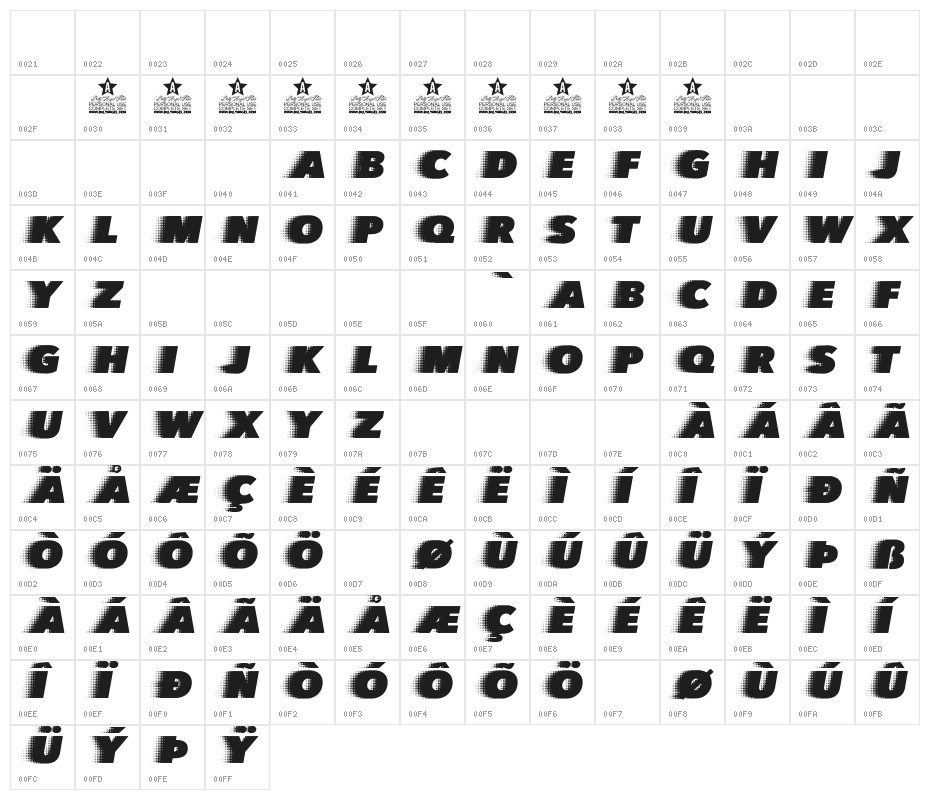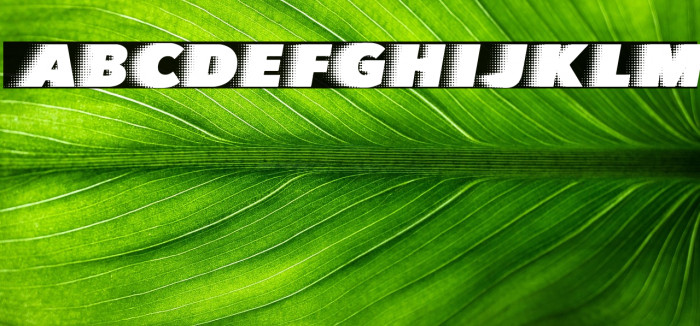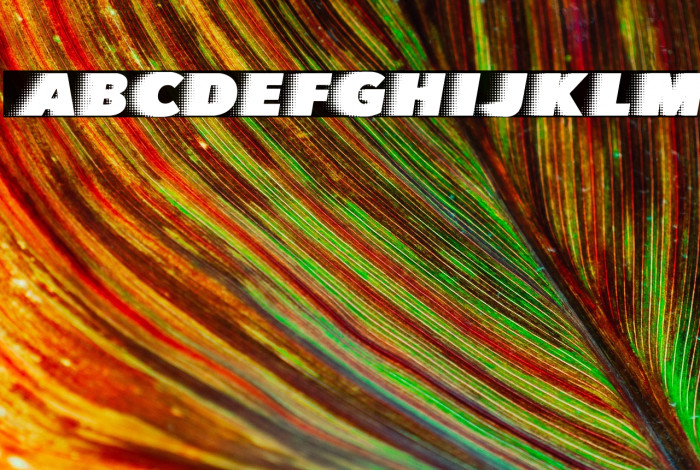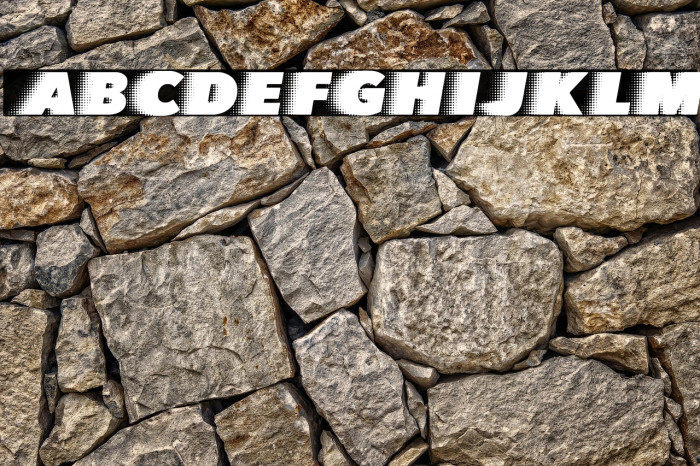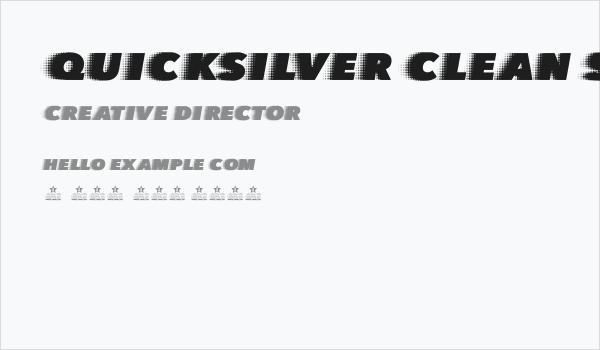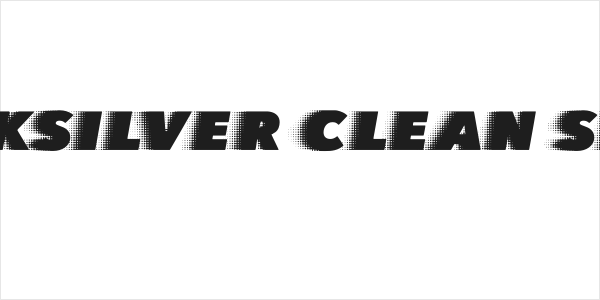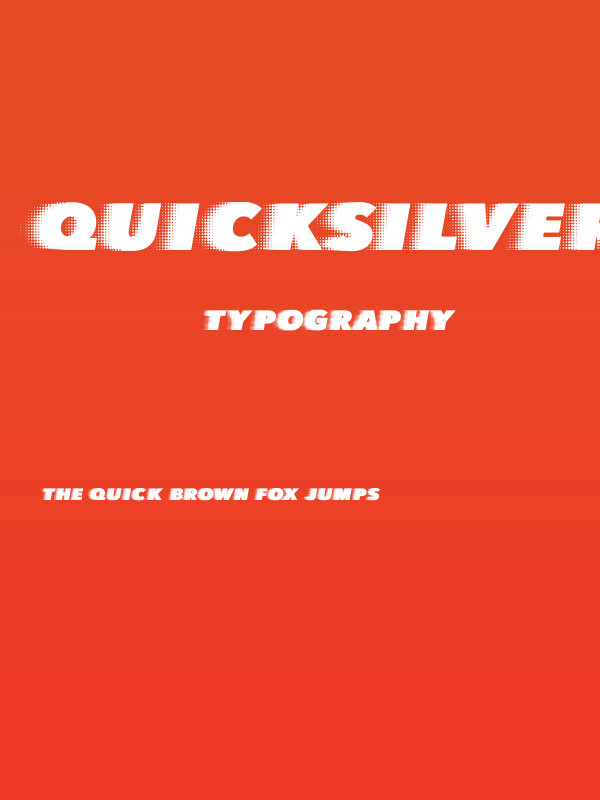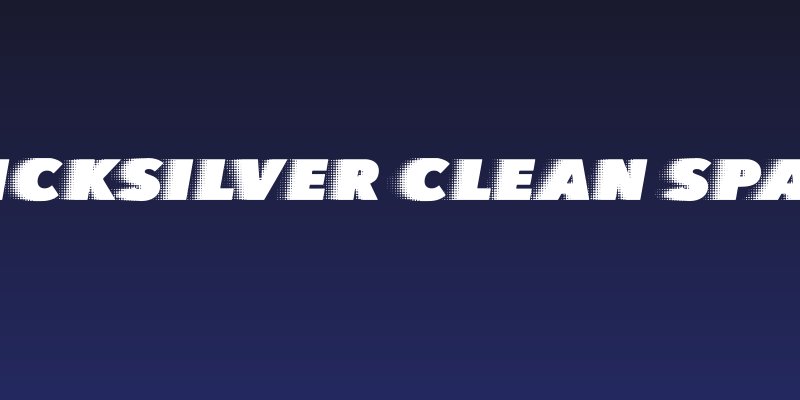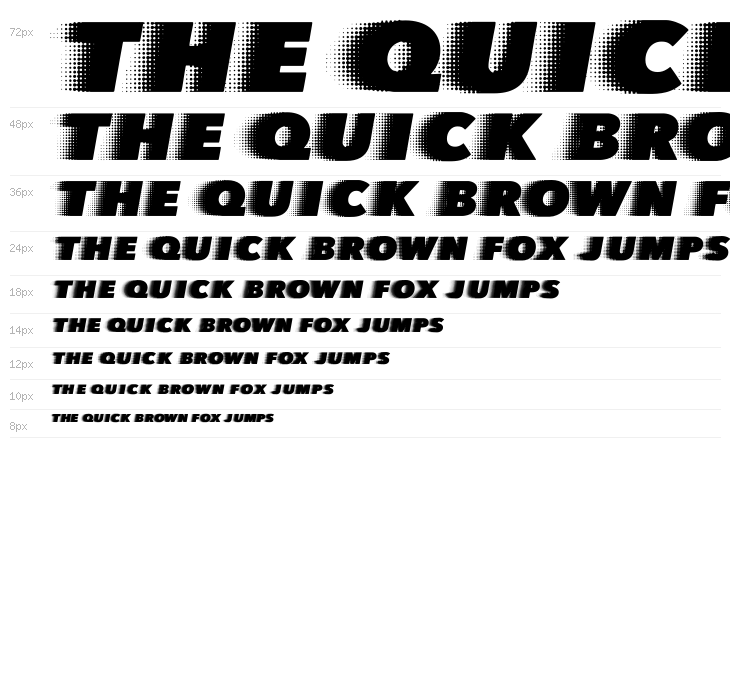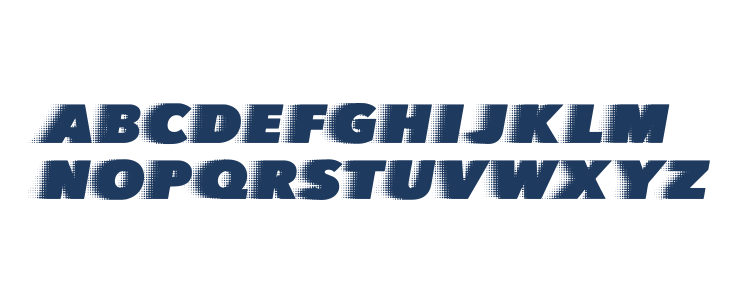
QUICKSILVER CLEAN SPACED Font
QUICKSILVER CLEAN SPACED Description
This font features a bold, dynamic style with a distinct halftone effect that gives it a sense of motion and energy. The uppercase letters are robust and impactful, making them suitable for attention-grabbing headlines. The design incorporates a gradient-like texture that transitions from solid black to a dotted pattern, adding depth and visual interest. The characters are slightly slanted, enhancing the sense of speed and movement. This font is ideal for projects that require a modern, edgy look with a touch of retro flair.
| Proposed Projects | Ideal for sports branding, action movie posters, dynamic advertisements, and edgy graphic design projects. |